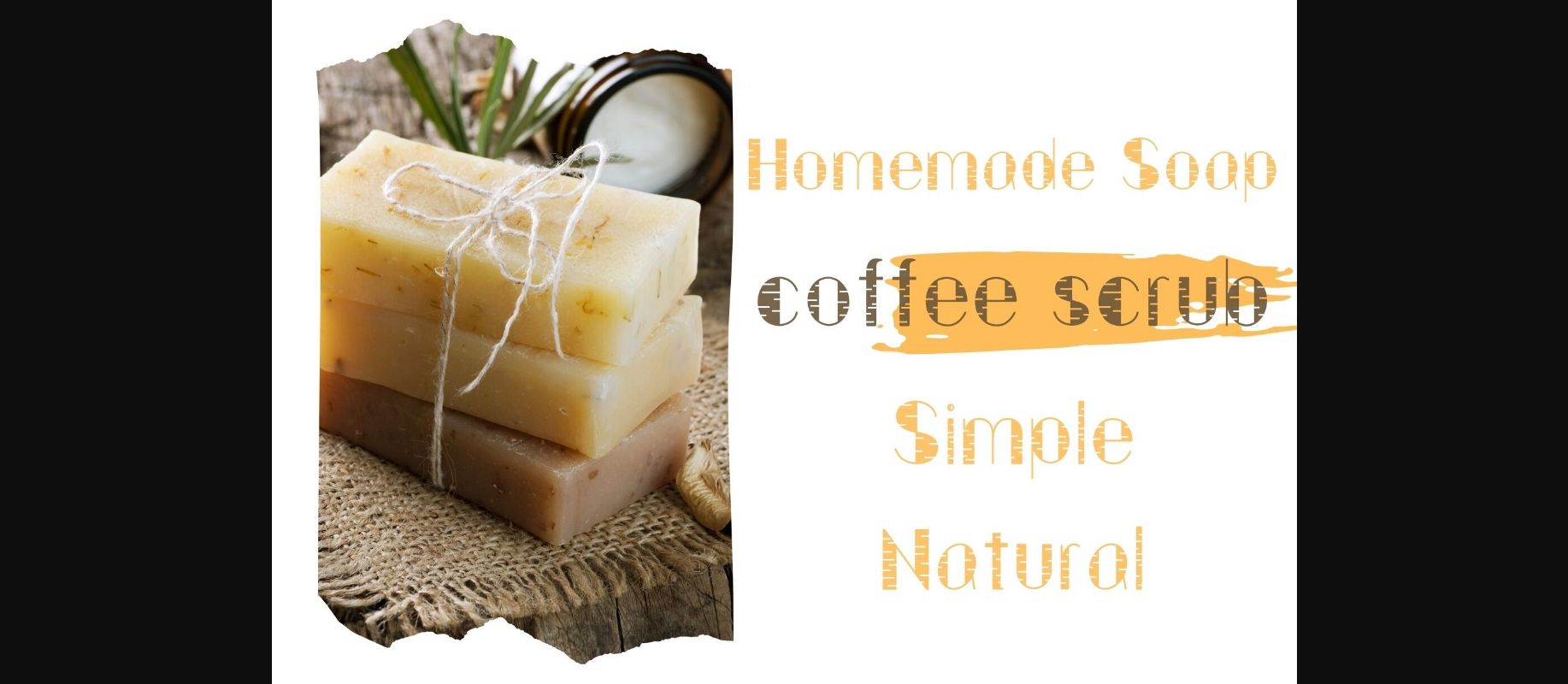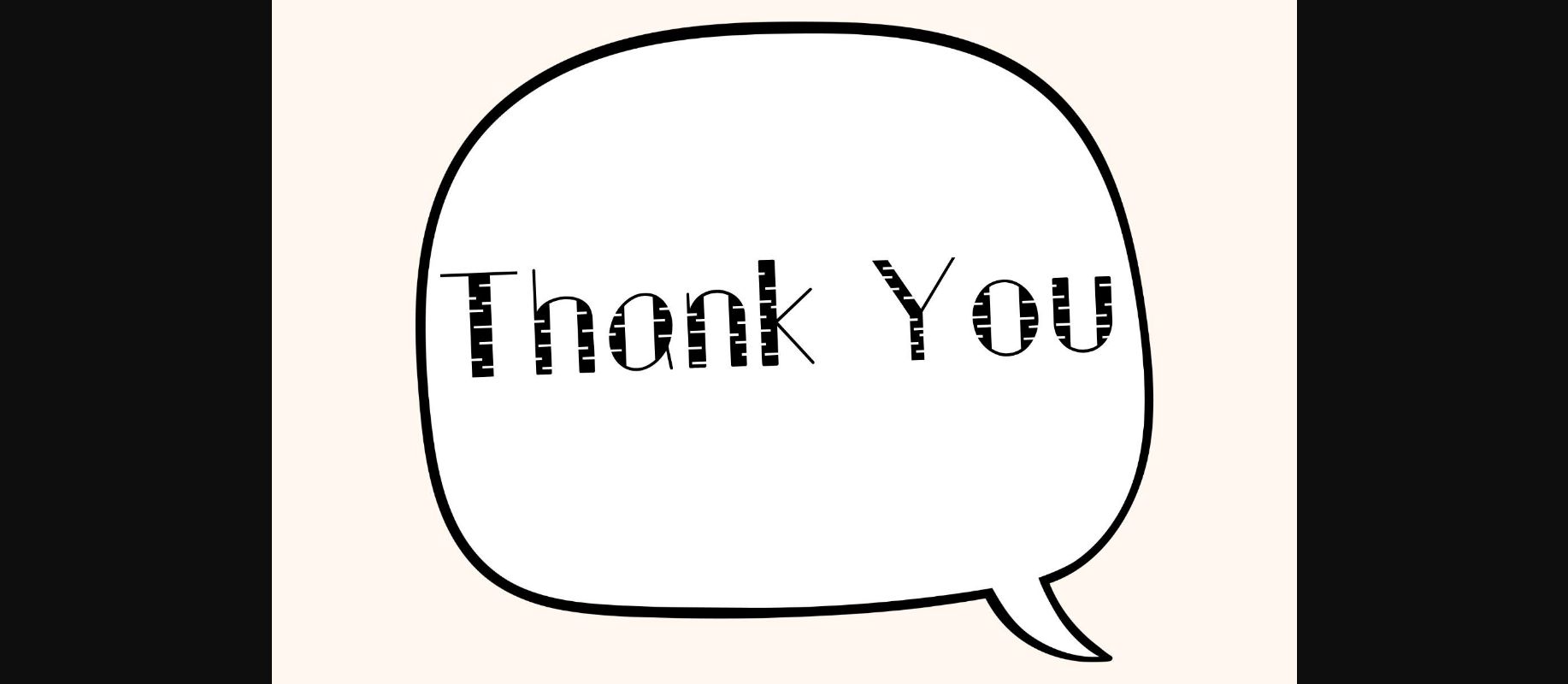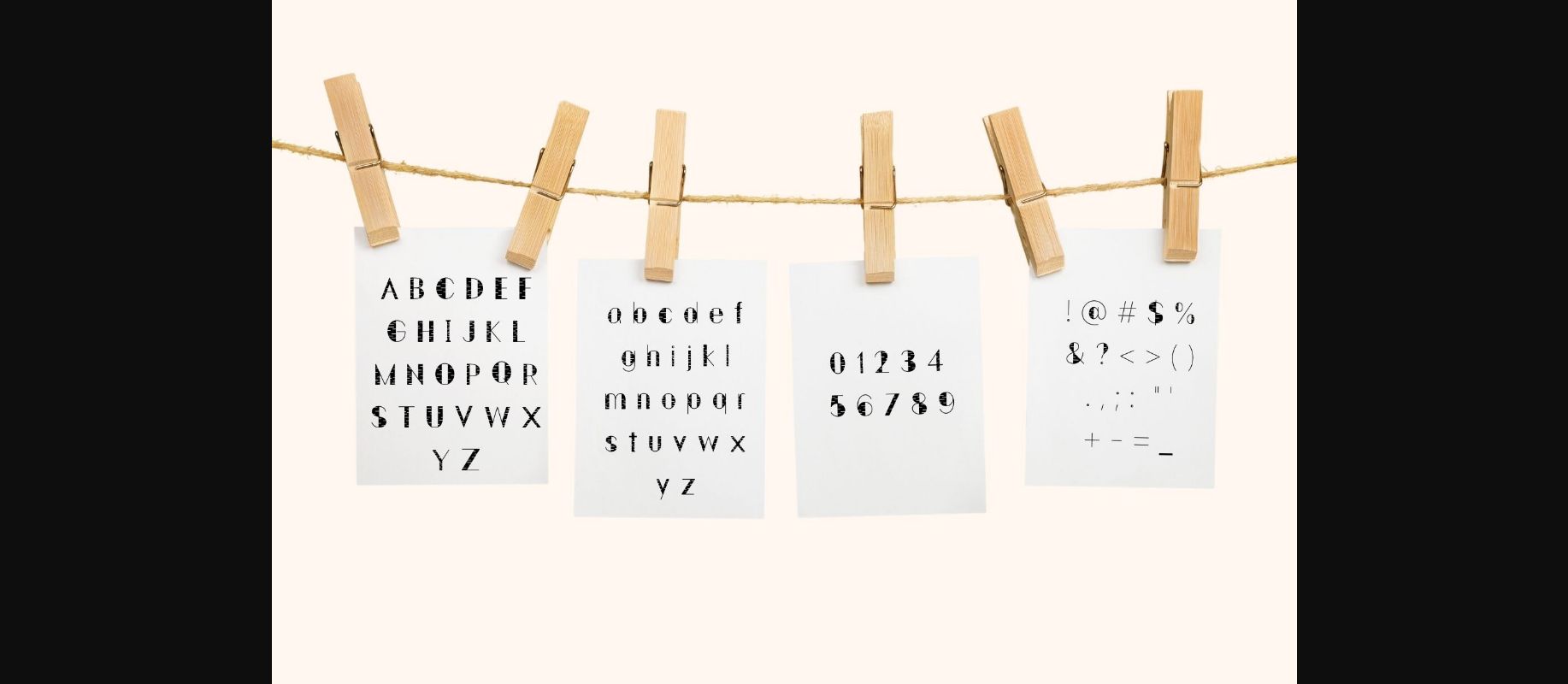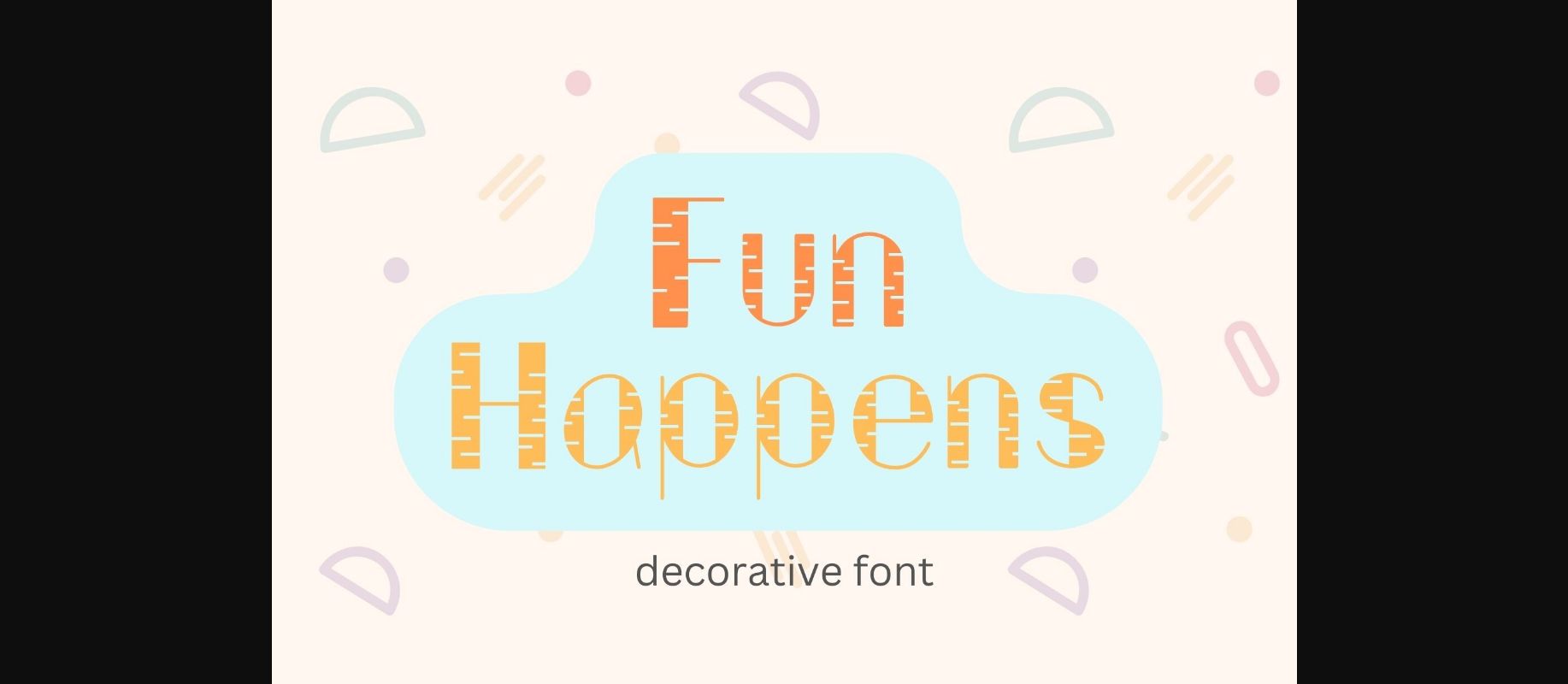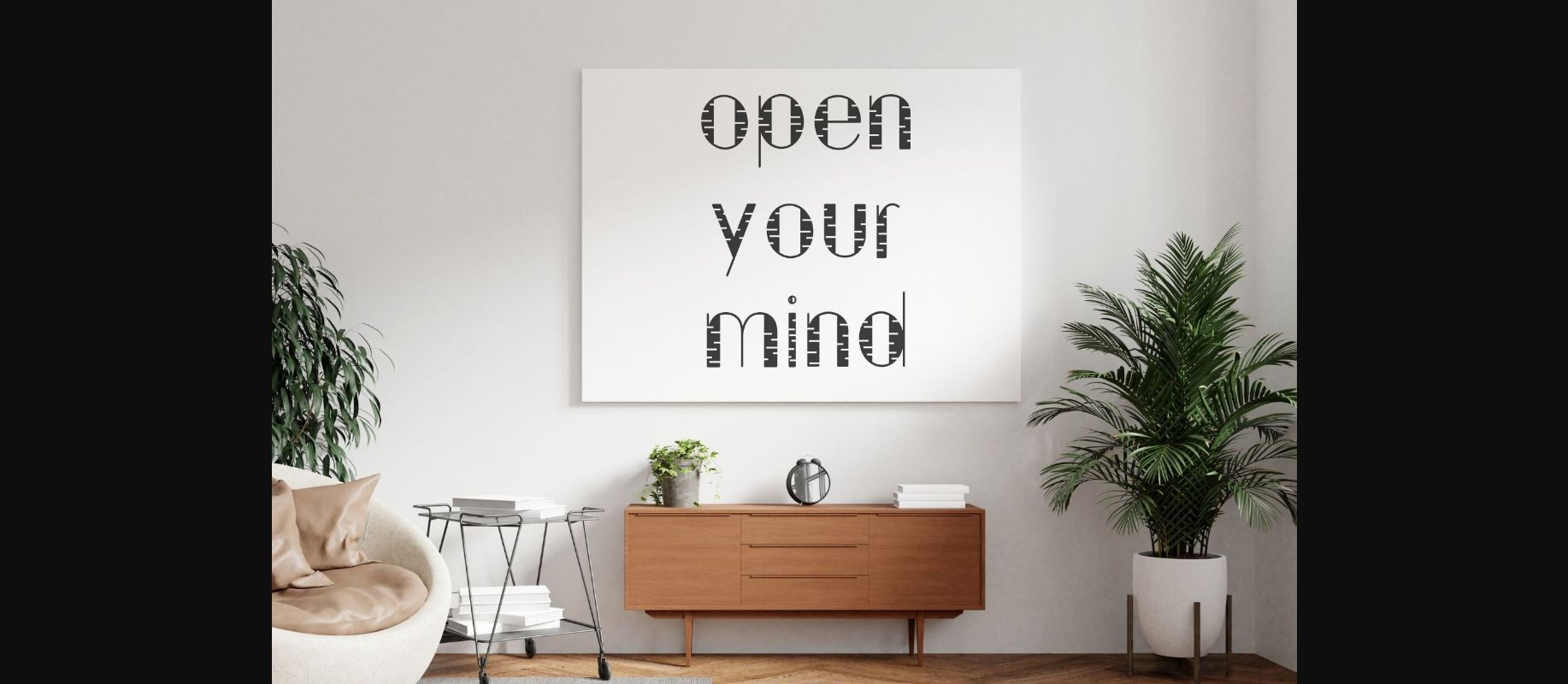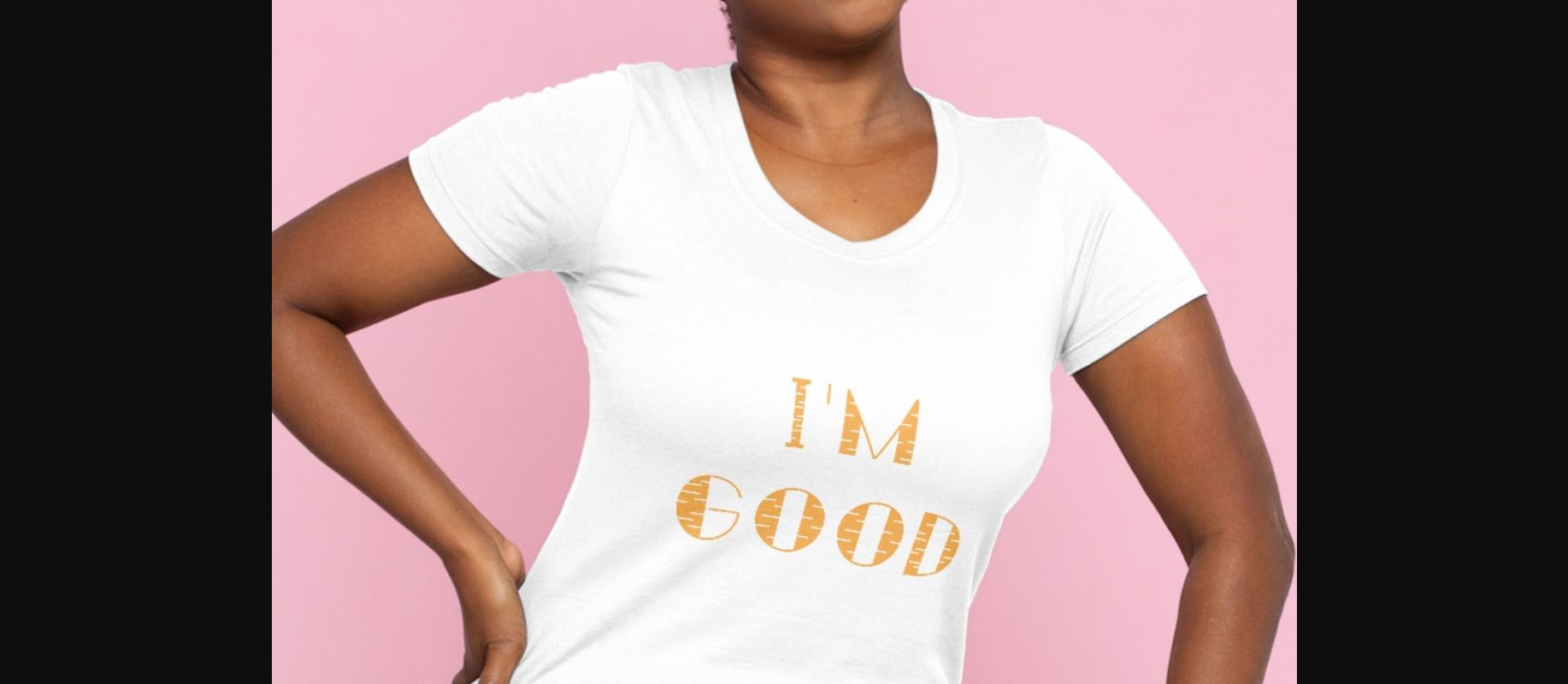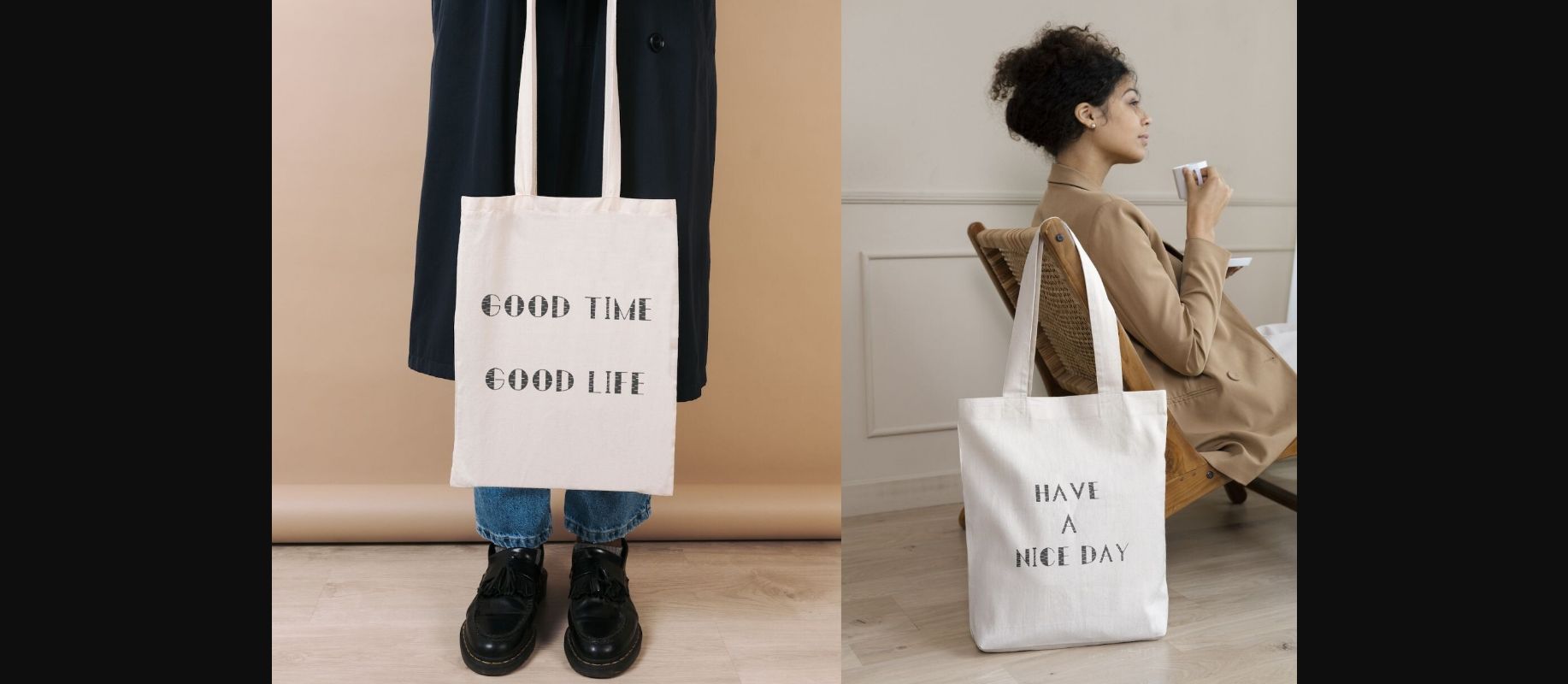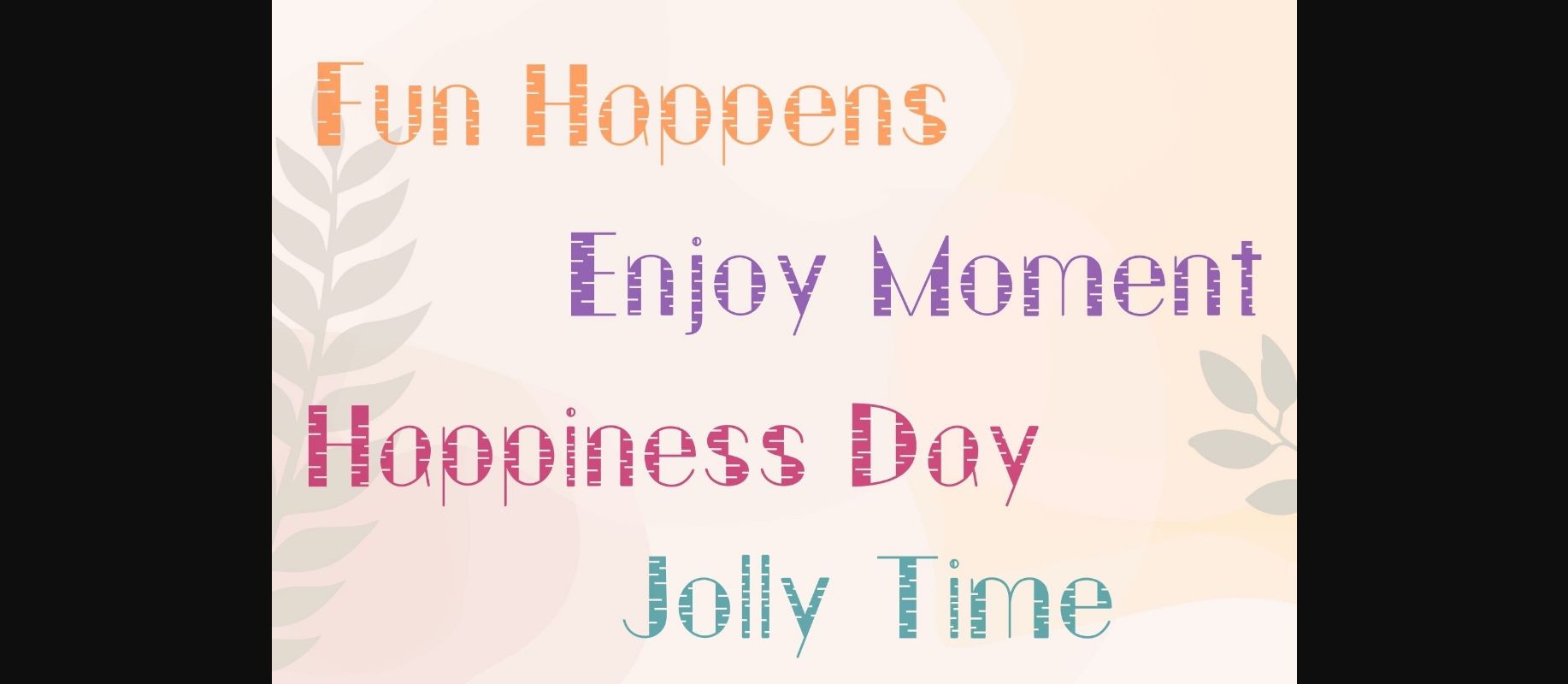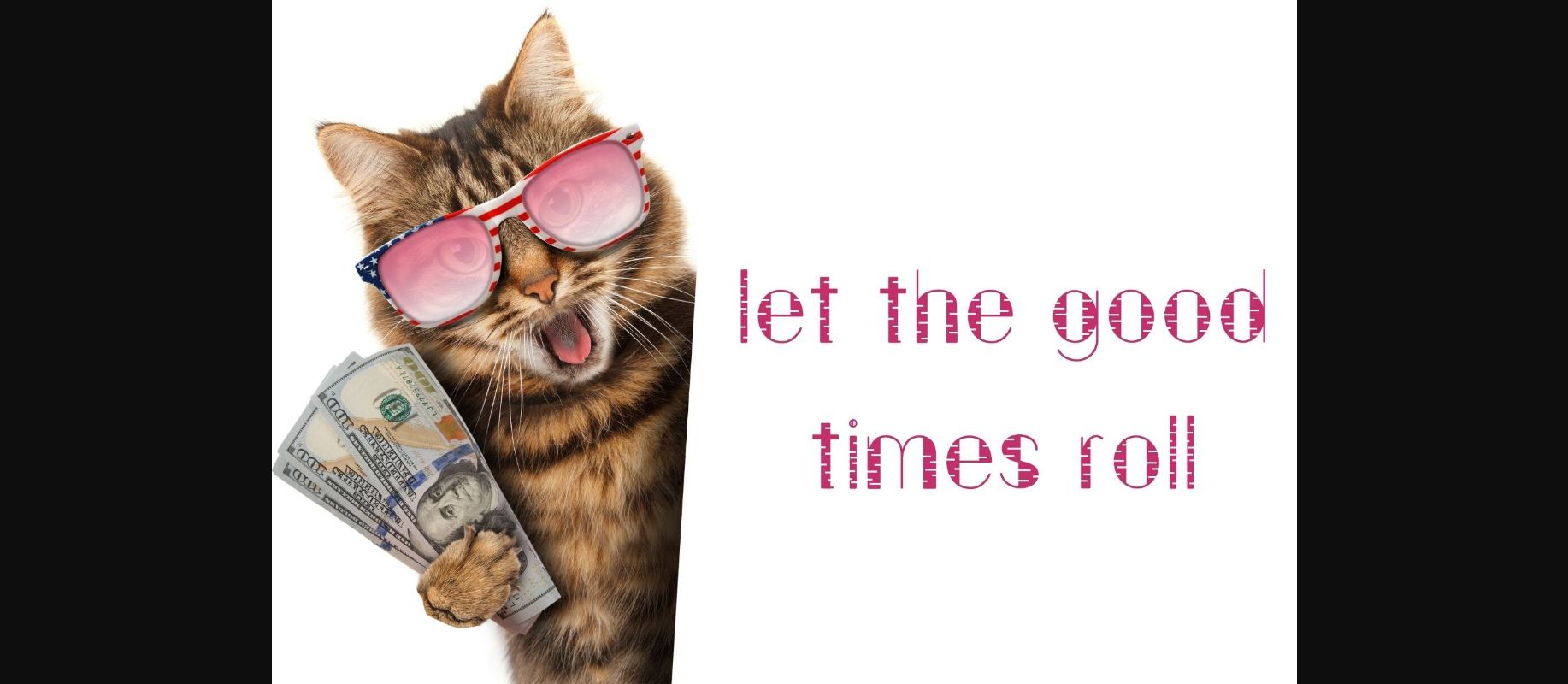
Fun Happens Font
About Fun Happens Font
Fun Happens is a decorative font that can be used within your documents for commercial and personal use! Perfectly suitable for numerous uses such as digital note-taking, digital planners, quotations, banners, logos, product packaging, titles, headers, menu lists, etc.